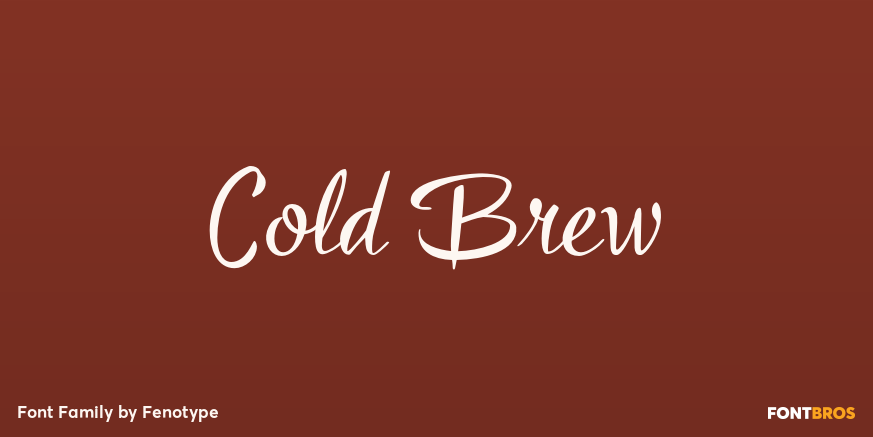
Cold Brew
About Cold Brew
Cold Brew is a swift brush script family of three weights and a set of extras. Cold Brew is based on hand drawn letters polished with care to retain the vivid appearance of ink brush. Cold Brew is equipped with OpenType features to give you tools for…